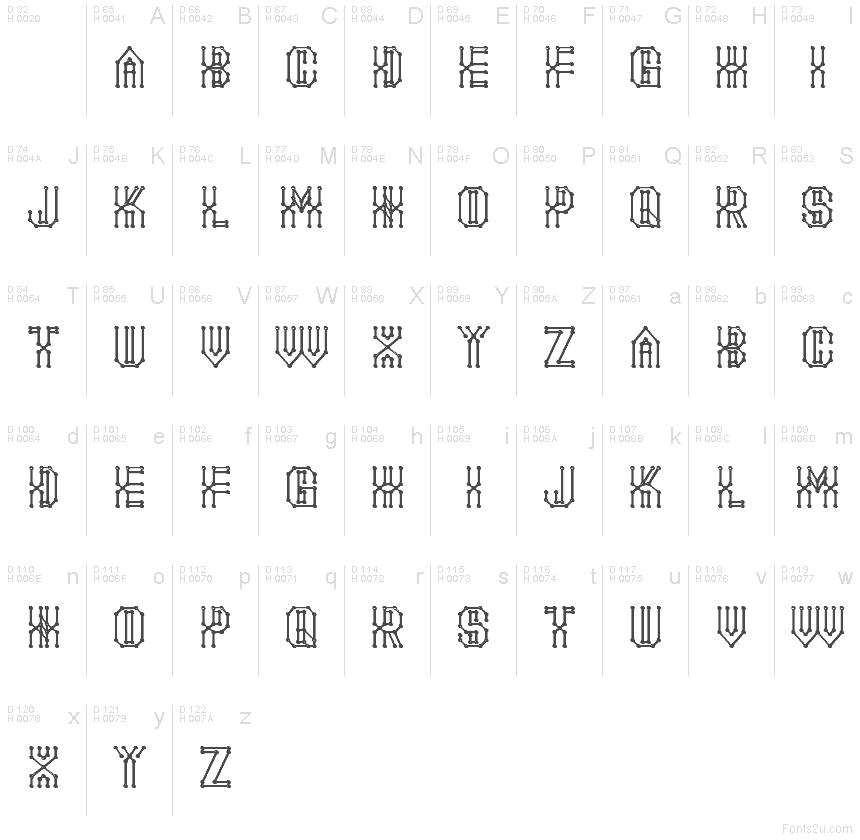
Desert Extravagant Medium
Desert Extravagant font by Vladimir Nikolic is a decorative display typeface with unique circuit-like details. This bold font has an eccentric, futuristic feel with its industrial and geometric design that’s both impressive and inspiring. Add some talent to your designs with this free language font which pays great attention to keeping every character legible, and fun.
Works especially well for digital environment headings, technology logos/branding, posters, stationery, or T-shirt designs. Other possibilities include business cards, typography posters, product packaging branding and label design.